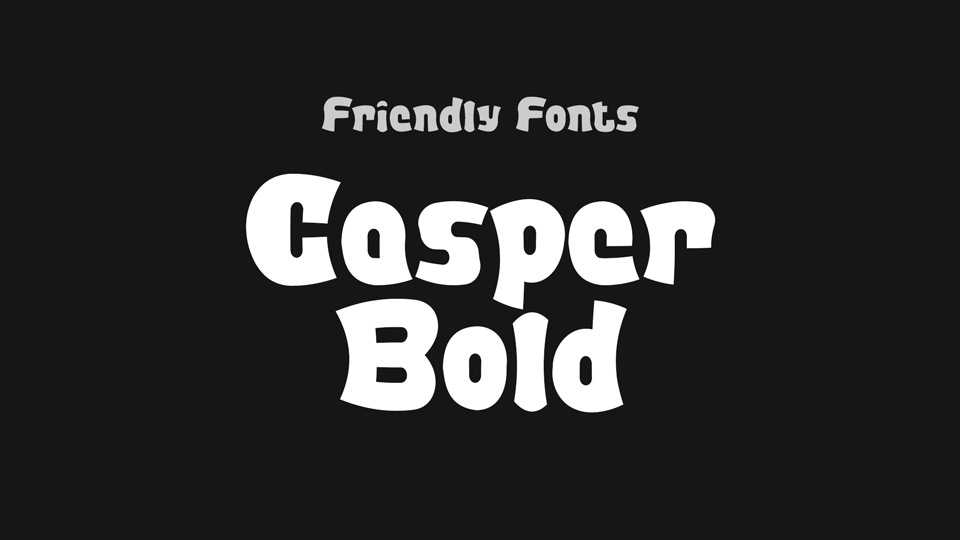
Download FF Casper font, a bold display typeface with a quite geometric, but also pretty expressive and fun look. FF Casper font is a pretty good choice for logotypes, branding, headlines and posters.
Designer: Friendly Fonts